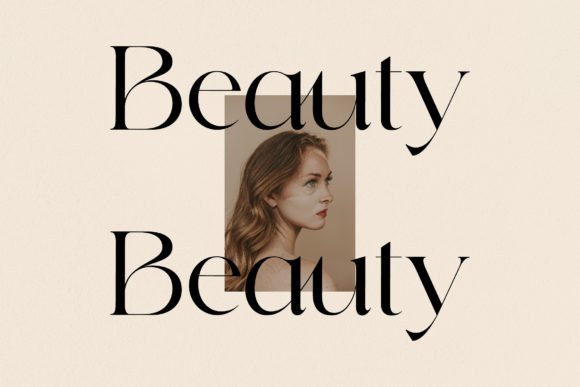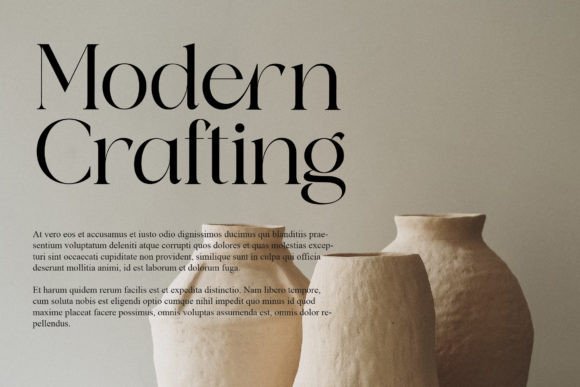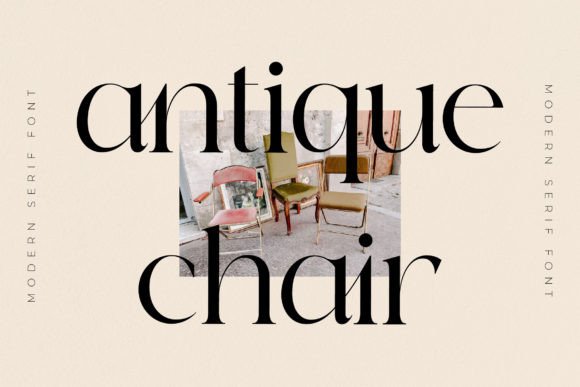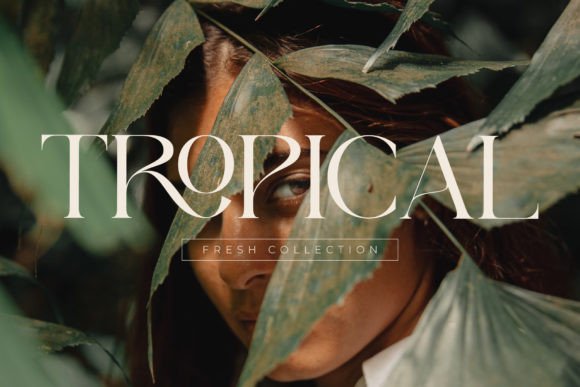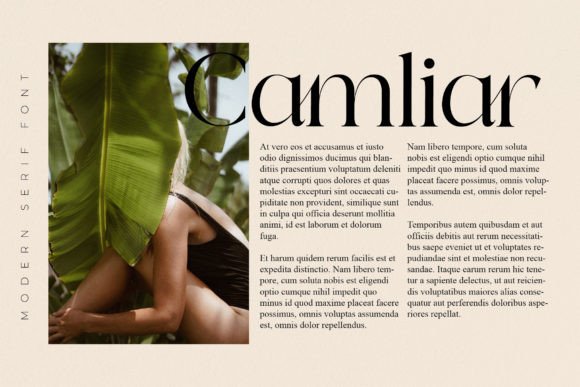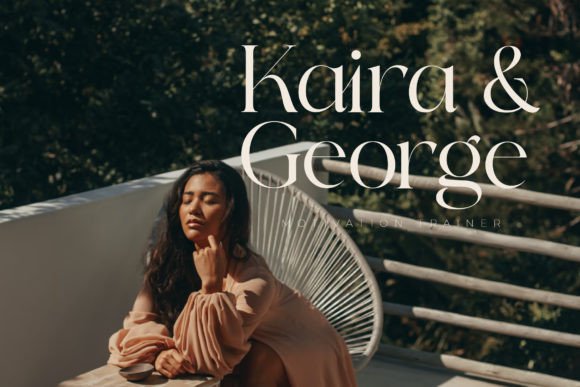
Introduction to Qeilab Font
Qeilab is a modern and classic serif font with a unique style and modern look.
This typeface is perfect for an elegant & luxury logo, book or movie title design, fashion brand, magazine, clothes, lettering, quotes, and so much more .